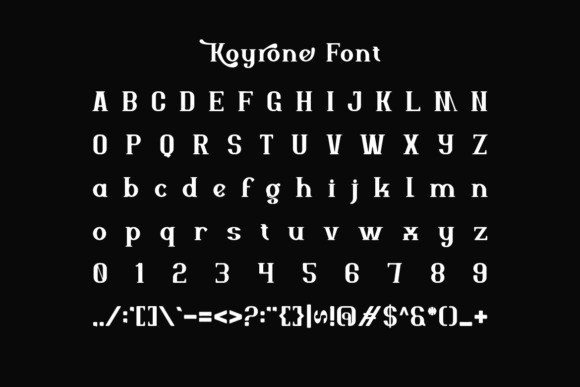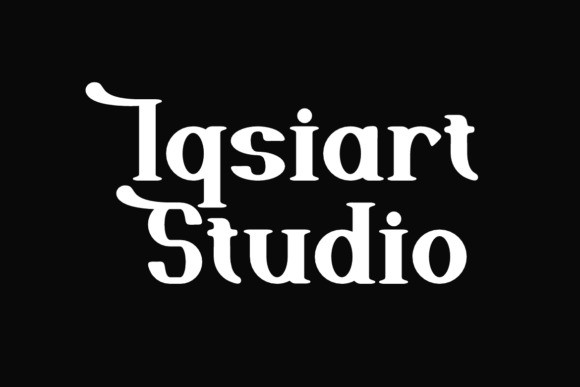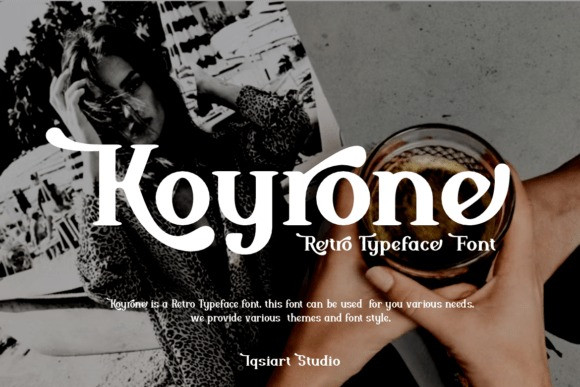
Koyrone Font
Koyrone Font is a retro display serif with plush ’70s swagger. Thick verticals and gently tapered curves build sturdy, high-impact word shapes, while oversized ball terminals sparkle at stroke endings. The alternates introduce playful inward curls and swooping caps that add motion without sacrificing clarity. Wide bowls, open counters, and a tall x-height keep the texture chunky yet readable; clipped, compact serifs and squared shoulders give the letters a confident stance. Use tight tracking for poster punch or add air for luxe editorial drama. With uppercase, lowercase, numerals, punctuation, and stylish alternates, Koyrone brings nostalgic charm and modern polish to logos, packaging, headlines, and social graphics.